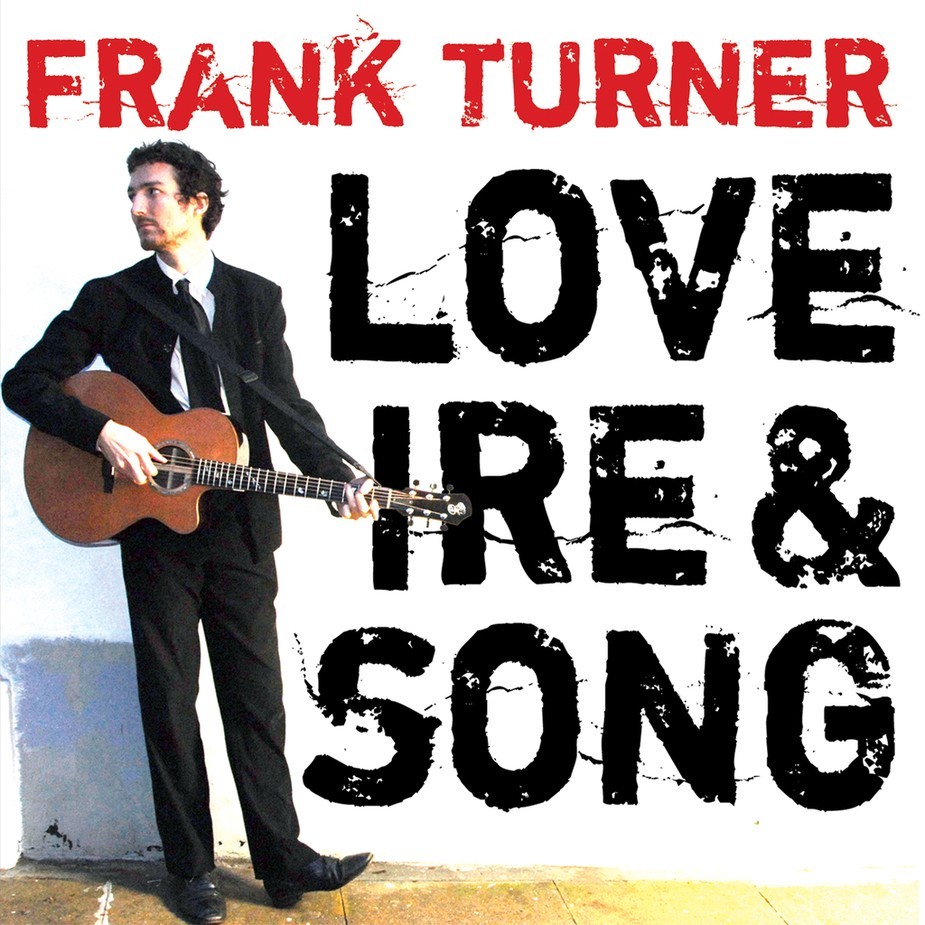
Love Ire & Song Font
FolkLove Ire & Song is the second studio album by English singer-songwriter Frank Turner, released in 2008. The album is characterized by its raw and energetic folk-punk sound and features introspective and politically charged lyrics.